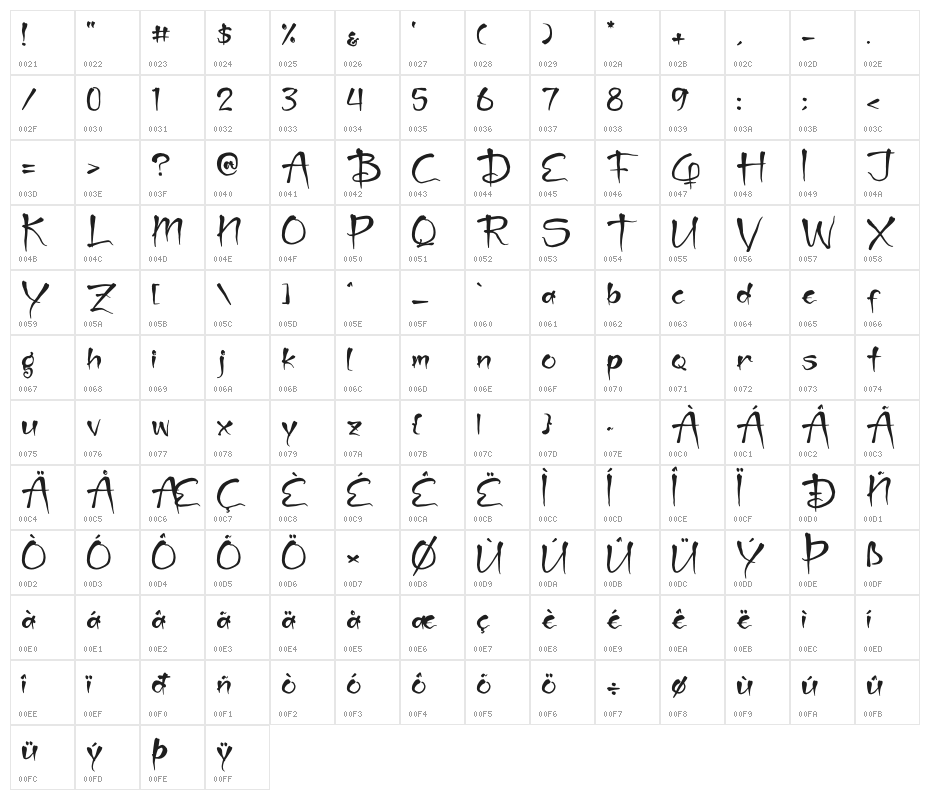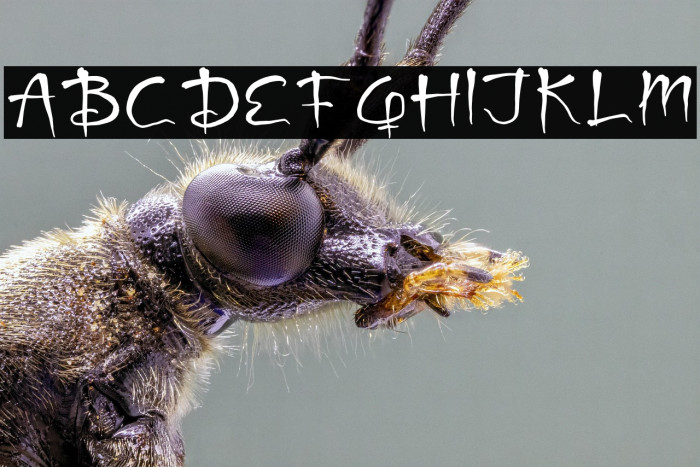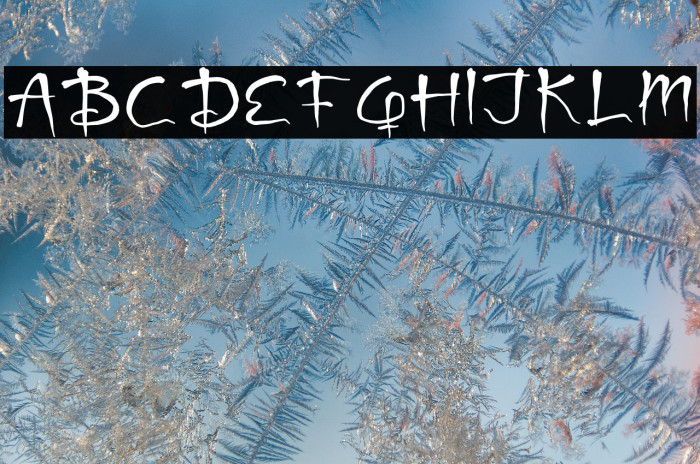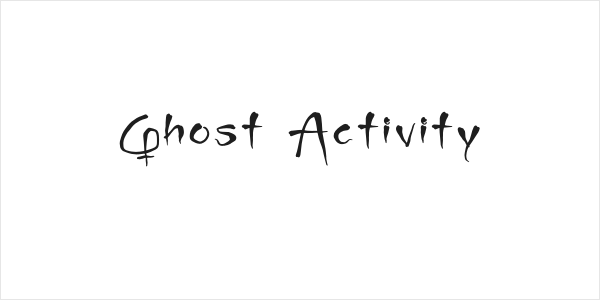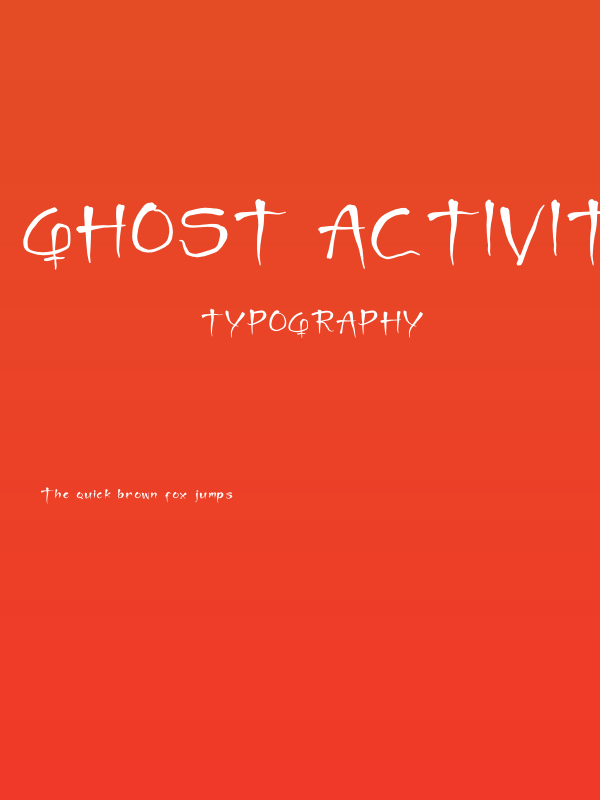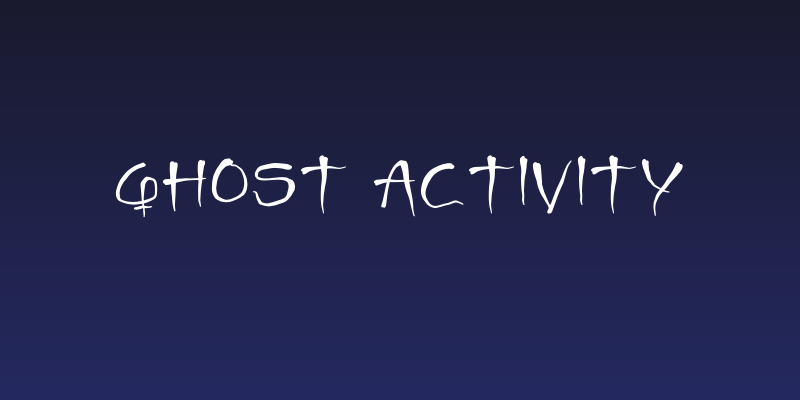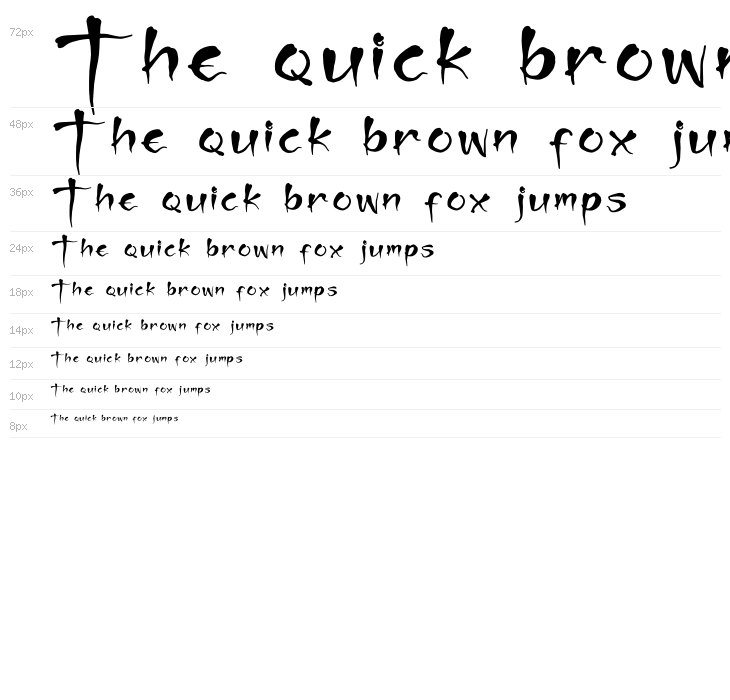
Ghost Activity Font
This font features a unique, hand-drawn style with an eerie, ghostly appearance. The characters are irregular and slightly distorted, giving them a haunting and mysterious vibe. The strokes are uneven, with some parts thicker and others thinner, creating a dynamic and unpredictable look. The uppercase and lowercase letters maintain a consistent style, while the numbers and special characters add to the overall spooky aesthetic. This font is perfect for projects that require a touch of the supernatural or a Halloween theme.
| Proposed Projects | Ideal for Halloween-themed designs, horror movie posters, haunted house flyers, and spooky invitations. |